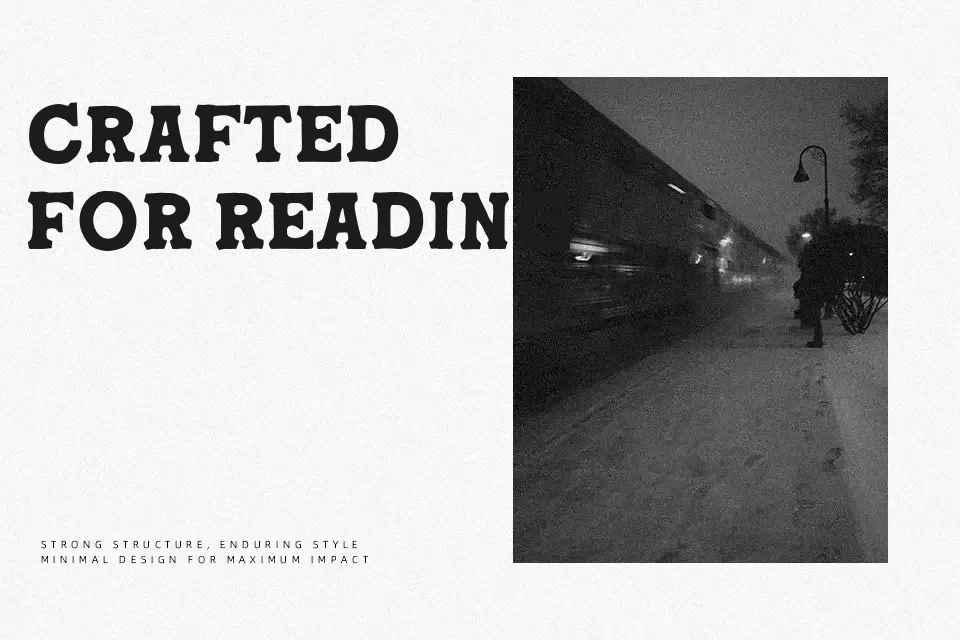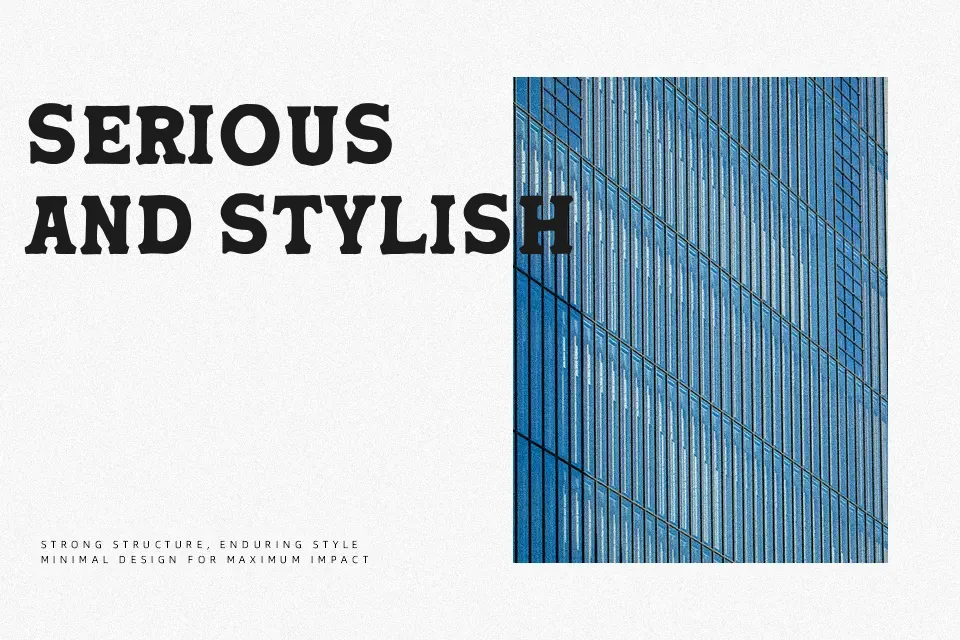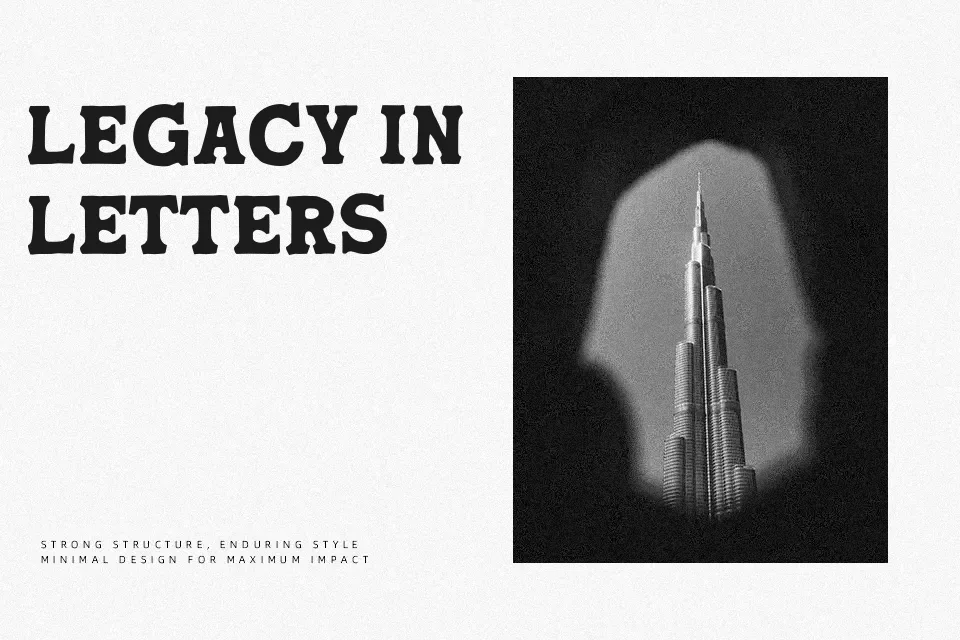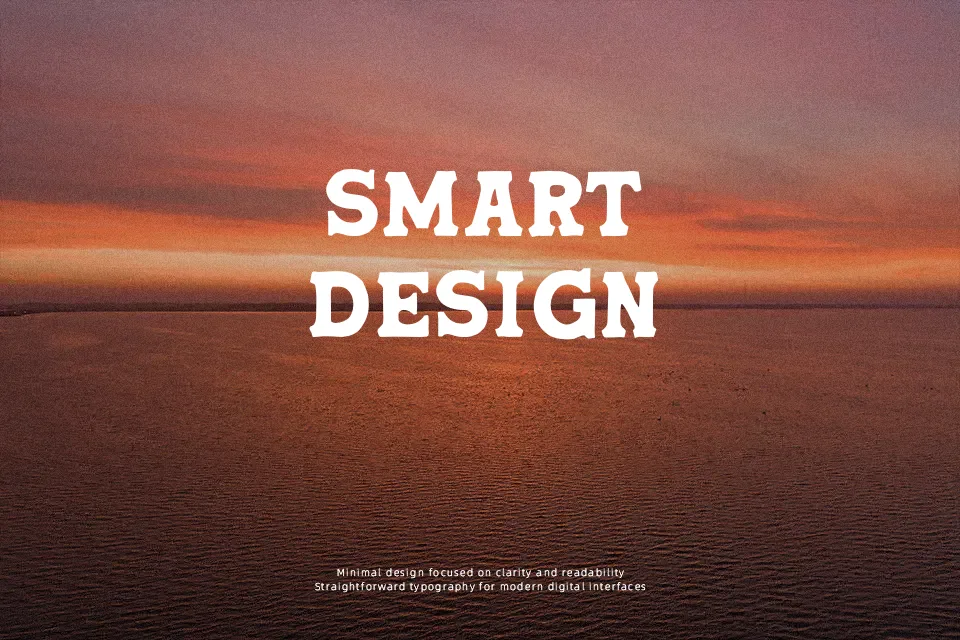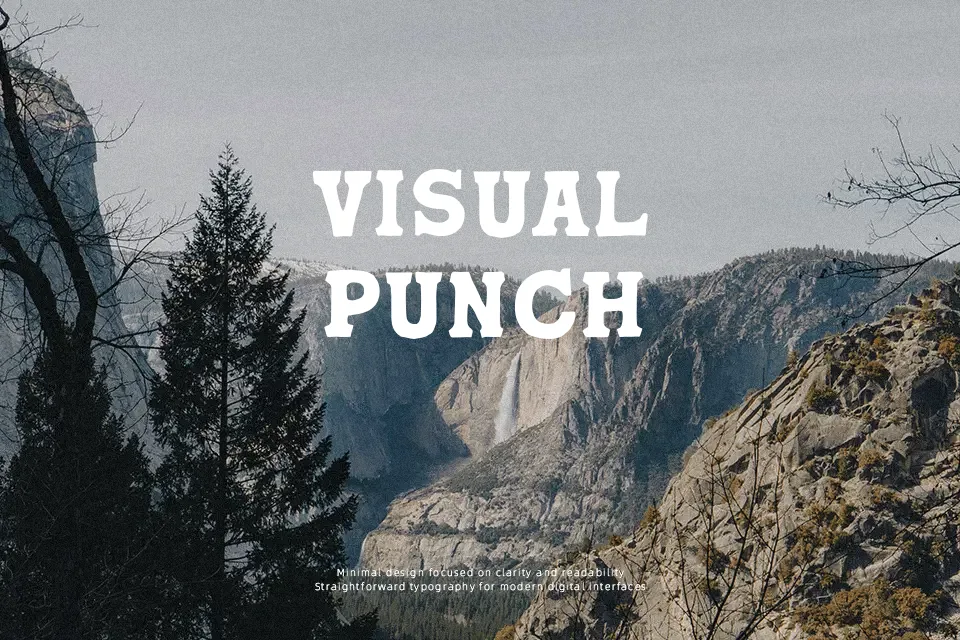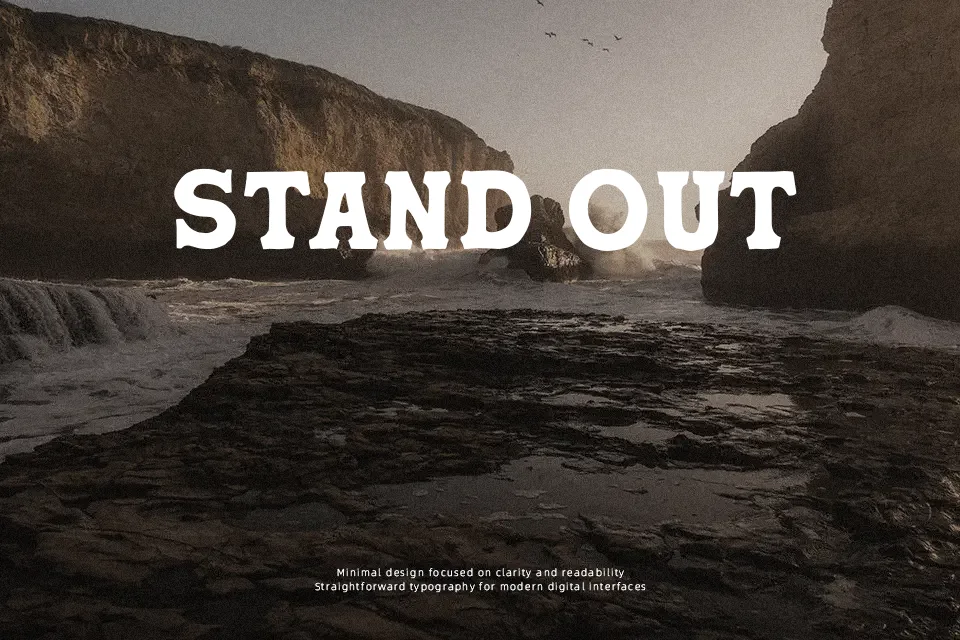
Calvous Font
Calvous is a display serif built with chunky slabs, clipped terminals, and slightly weathered contours that echo classic Western signage. The letters feel sturdy and compact, with tight spacing and a blocky rhythm that pushes the eye horizontally rather than inviting long reading. It works nicely when you want a bold, cowboy-era atmosphere for things like whiskey labels, rodeo or country music posters, restaurant menus with a rustic theme, or branding for outdoor gear. It tends to look heavy and busy in small sizes or dense paragraphs, so it is better kept for prominent display lines instead of body copy or minimalist branding systems.
Western-themed posters and flyers
Rustic bar, saloon, or steakhouse branding
Vintage product labels and badges
Country or rodeo event graphics
Body text or long reading
Clean corporate or tech branding
Tiny UI elements or mobile app copy
Highly minimal or neutral layouts
Perfect for branding, music, and packaging, with a bold and display style.